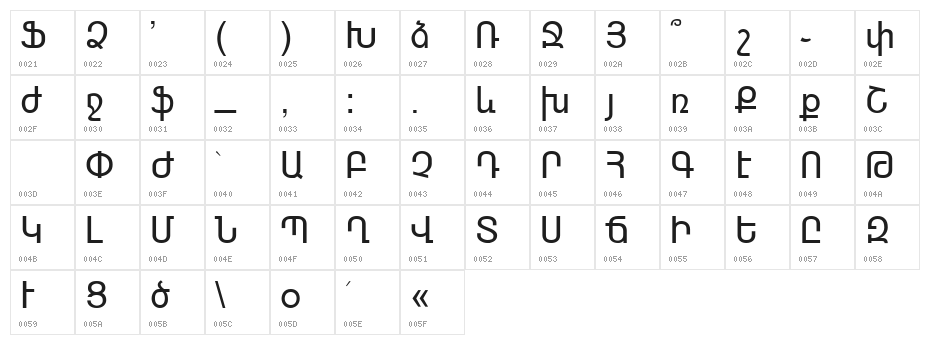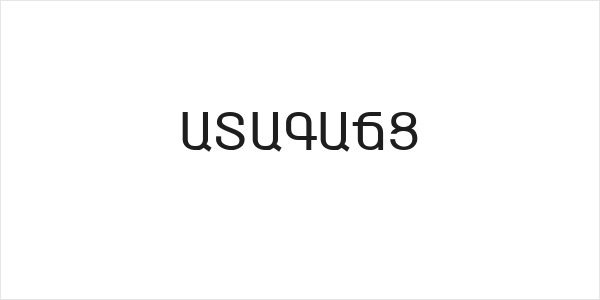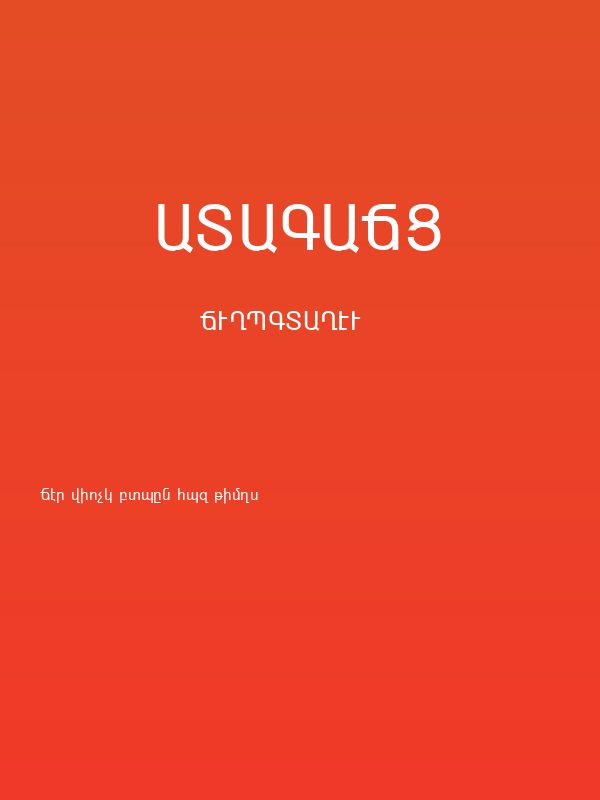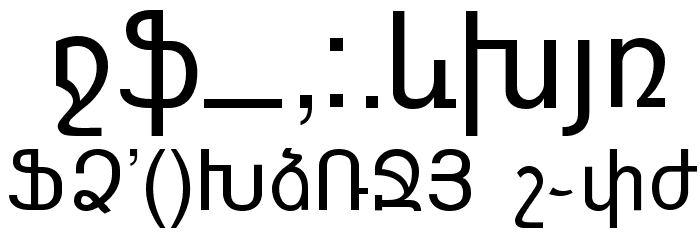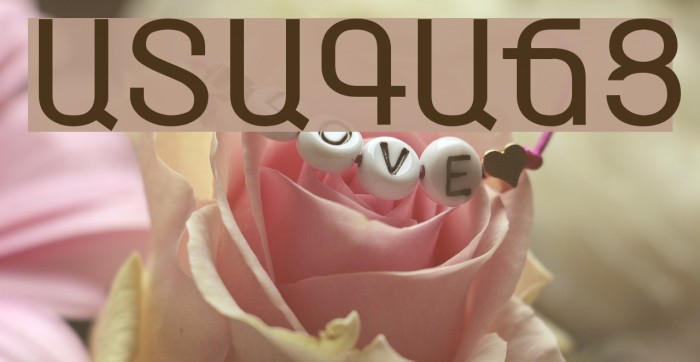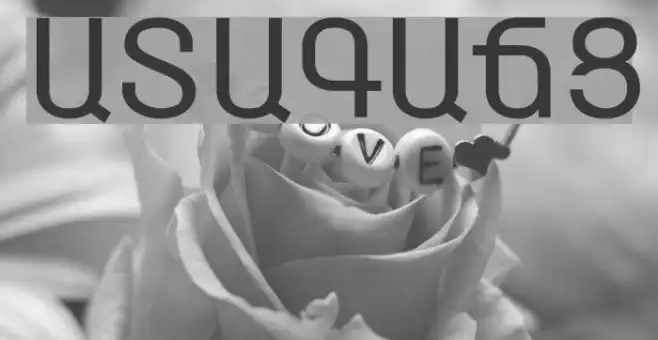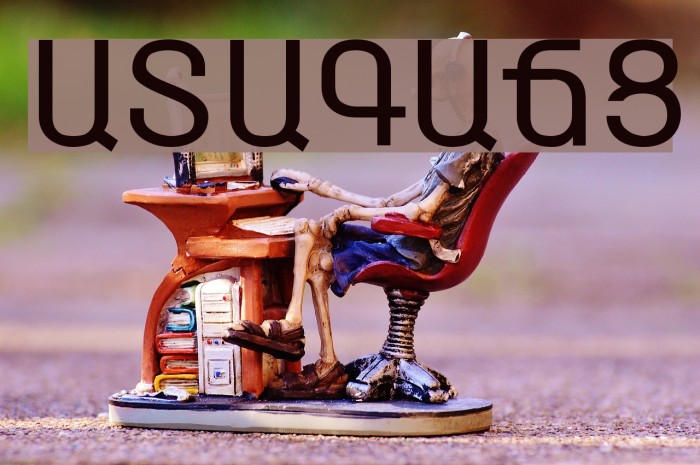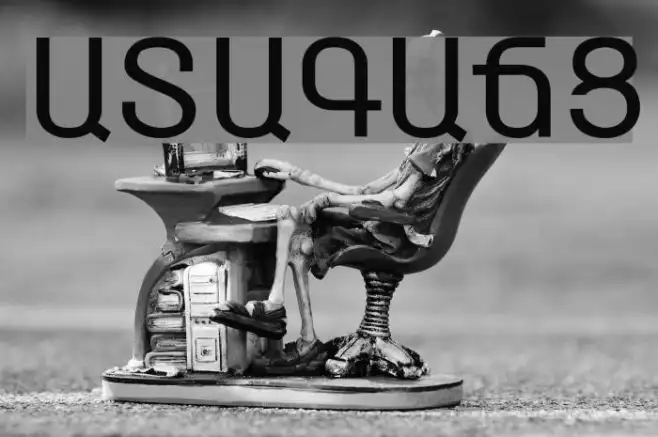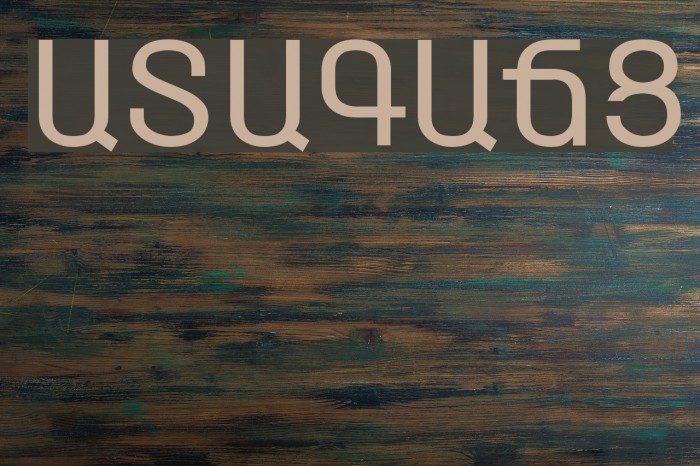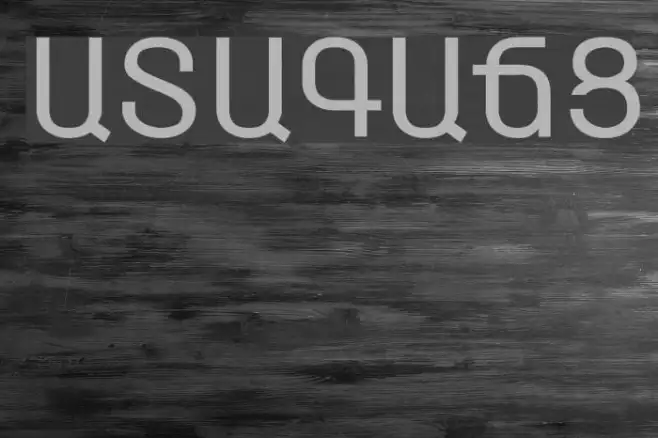
ARAGATZ Font
ARAGATZ Description
This font features a modern and clean design with a geometric structure. The characters are well-defined with consistent stroke widths, giving it a uniform appearance. The font has a slightly condensed form, which makes it suitable for both display and text purposes. The rounded edges and smooth curves add a touch of softness, balancing the overall sharpness of the geometric shapes. The spacing between characters is normal, ensuring readability while maintaining a compact look. This font is versatile, making it ideal for various design projects that require a contemporary and professional aesthetic.